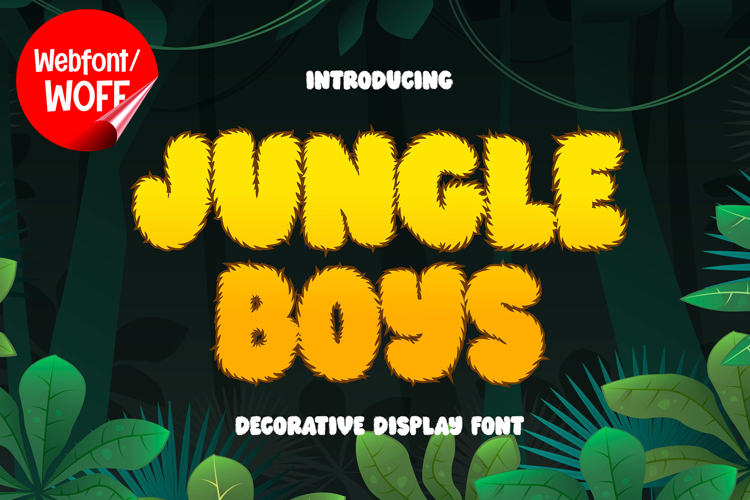
Jungle Boys | Decorative Display Webfont for Creative Design
Jungle Boys is a decorative display webfont designed to bring playful creativity and bold visual energy into modern website design. Inspired by adventurous themes, artistic display typography, and expressive lettering styles, this font features unique shapes and dynamic character details that create a fun and eye-catching visual identity. It is an excellent choice for projects that aim to deliver a creative, stylish, and visually engaging typographic appearance.
Jungle Boys includes a complete set of uppercase characters designed with decorative display aesthetics. The letterforms feature bold proportions, playful curves, and expressive styling that create a lively and adventurous appearance. These characteristics make it ideal for headlines, banners, hero sections, branding layouts, promotional graphics, and featured content where strong visual personality is needed.
In addition to letters, the font includes numbers and punctuation, allowing flexible usage across various parts of a website. It works well for children’s websites, creative branding, entertainment projects, gaming graphics, event promotions, and social media campaigns. Each character maintains a consistent decorative display style, ensuring a cohesive and unified visual identity throughout the design.
With multilingual support, Jungle Boys includes a wide range of accented characters, making it suitable for international websites and global audiences. This ensures content remains clear and visually consistent across different languages while preserving the creative and decorative aesthetic.
The decorative display style of Jungle Boys makes it especially suitable for adventure-themed websites, playful branding, creative digital campaigns, cartoon-inspired projects, and youth-oriented businesses. Its expressive appearance and bold structure create an energetic atmosphere that helps websites stand out in visually competitive environments. The unique typography adds movement, fun, and creative personality while maintaining a modern display style.
Despite its decorative and playful appearance, Jungle Boys is designed with readability in mind. The spacing and proportions are carefully balanced to ensure clarity, particularly in display sizes. This allows designers to use the font effectively for impactful headings and short content without sacrificing usability.
Jungle Boys is a webfont that combines decorative display aesthetics with modern digital performance. Its bold forms, playful structure, and creative character create a distinctive typographic presence that enhances website design. For projects that require a fun, adventurous, and visually engaging display font, Jungle Boys offers a versatile and exciting solution.